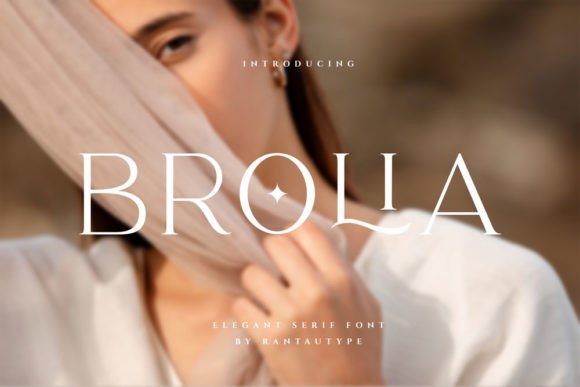
Journey into the realm of sophistication and elegance with Brolia Font, a captivating serif masterpiece crafted by RantauType. This font family, born from the fusion of timeless charm and modern aesthetics, is a treasure trove of typographic artistry.
Brolia Font, with its graceful curves and delicate serifs, commands attention on any small display. Its meticulously crafted glyphs dance across the screen with clarity and precision, ensuring your designs radiate an aura of excellence. Whether you're a seasoned designer or just starting your creative journey, Brolia Font will elevate your projects to new heights of beauty and distinction.
Step into the world of Brolia Font and discover a symphony of possibilities. Its versatile nature allows it to effortlessly adapt to a wide range of design styles. From classic and traditional to contemporary and edgy, Brolia Font seamlessly blends with your creative vision, adding a touch of sophistication to every project. Its timeless appeal ensures that your designs will stand the test of time, leaving a lasting impression on your audience.
Unleash your creativity and let Brolia Font guide you towards typographic greatness. Its effortless flow and elegant charm will transform your words into captivating works of art. Imagine your designs adorned with Brolia Font, radiating an aura of luxury and sophistication. The possibilities are endless, and the creative journey is yours to explore.
Embrace the allure of Brolia Font and embark on a journey of typographic excellence. Its timeless beauty and versatility will captivate your audience, leaving them in awe of your design prowess. Make Brolia Font your creative companion and experience the transformative power of exceptional typography.